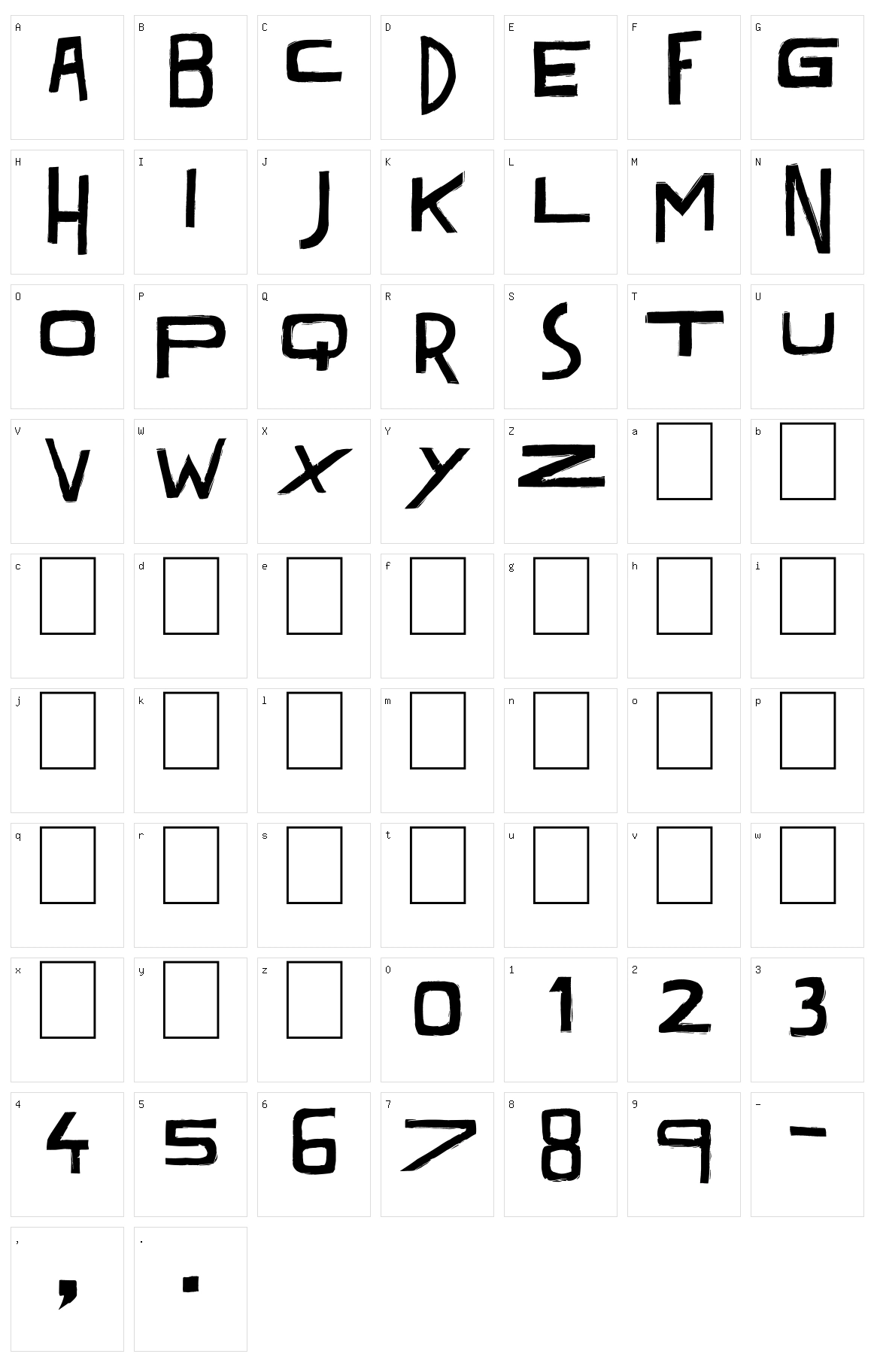
The free font Dark Times is carefully designed by imagex, showcasing a thoughtful balance of creativity and usability and falls under the Cartoon font style. When you download the ZIP file, it contains only 79.04 KB of font files, making it lightweight and quick to download. Please review the license details below to understand permitted usage and distribution rights. If license information is not available, we recommend using this font for personal projects only or contacting the author directly for commercial usage permissions.